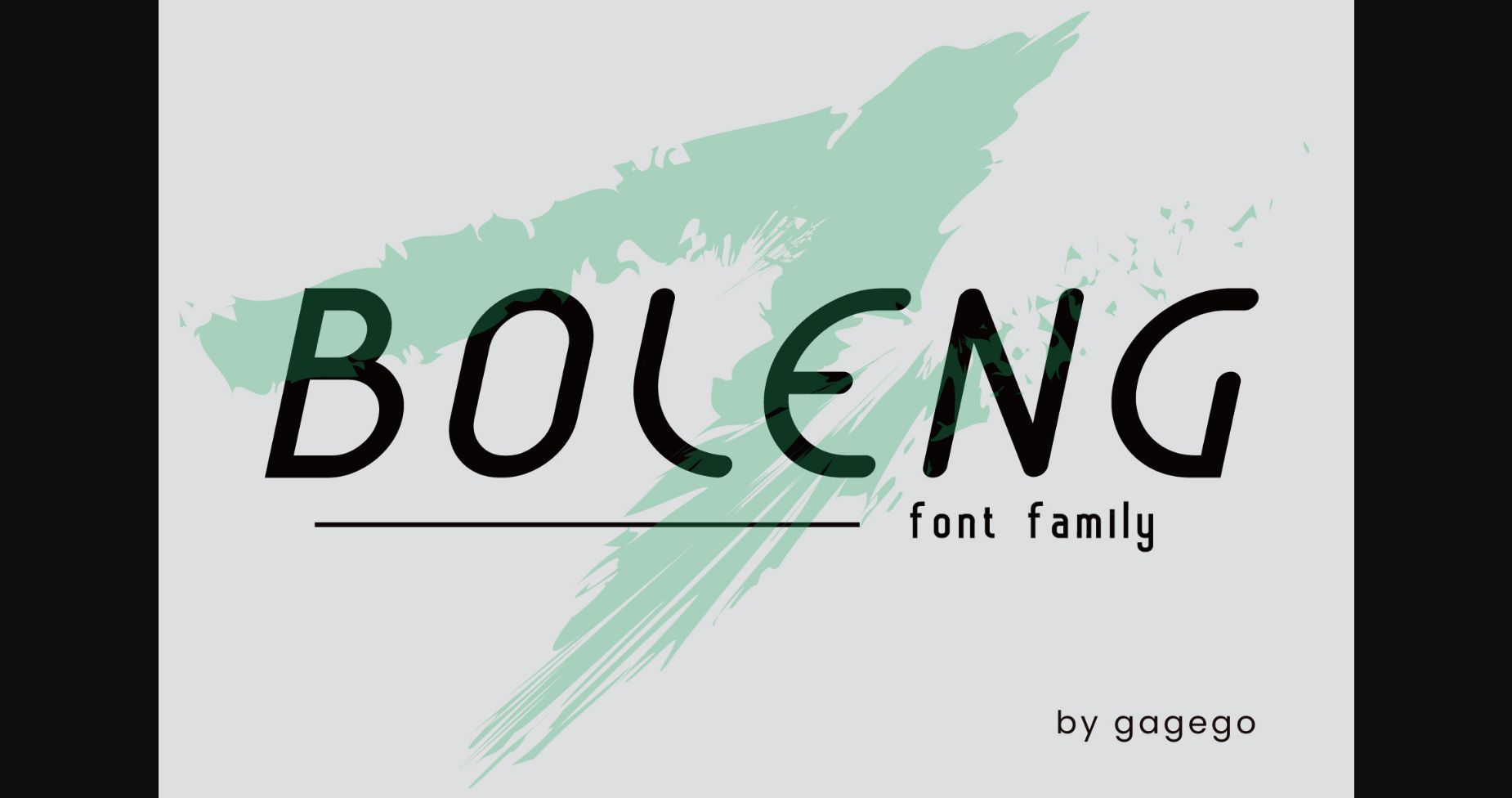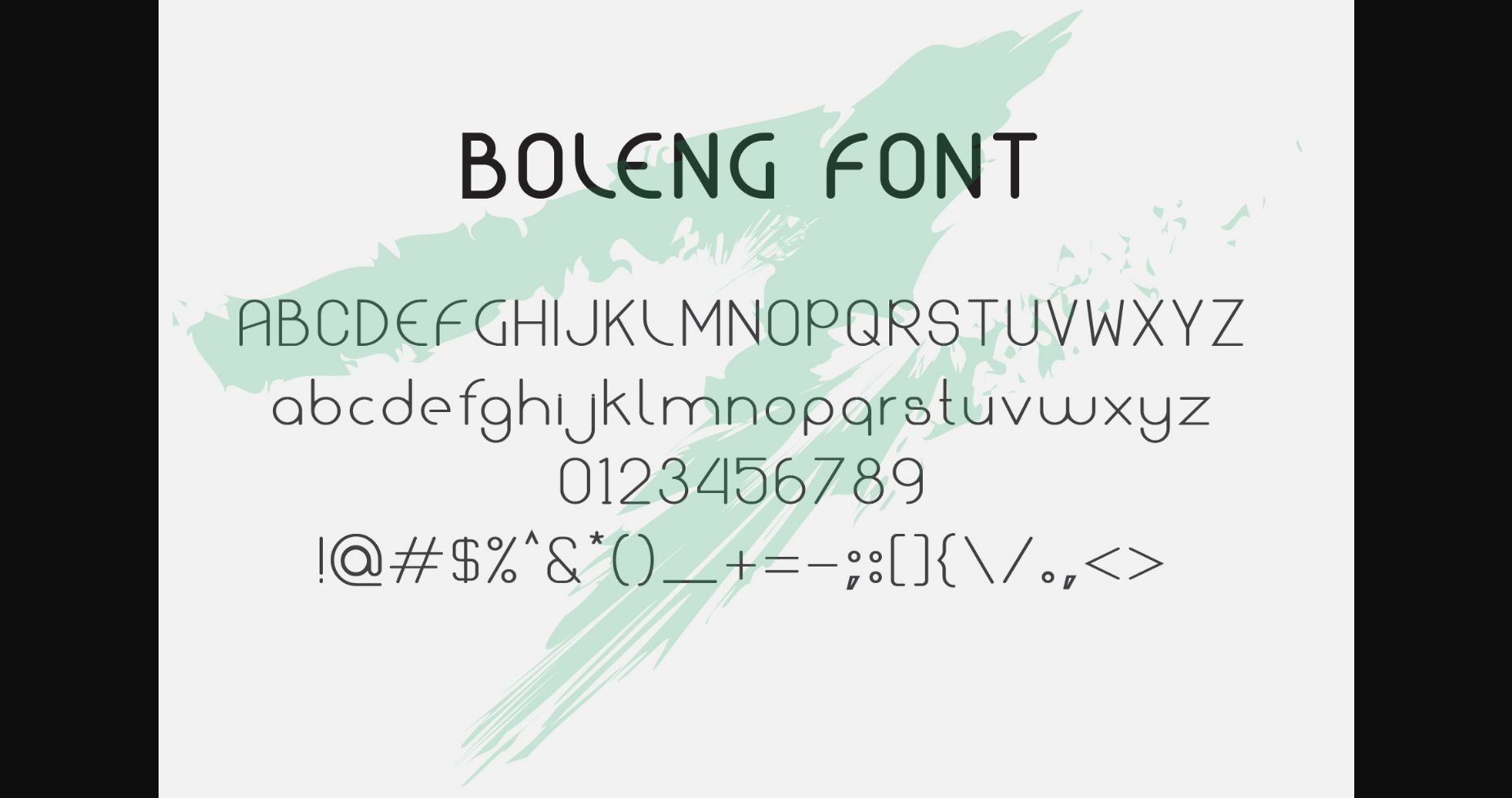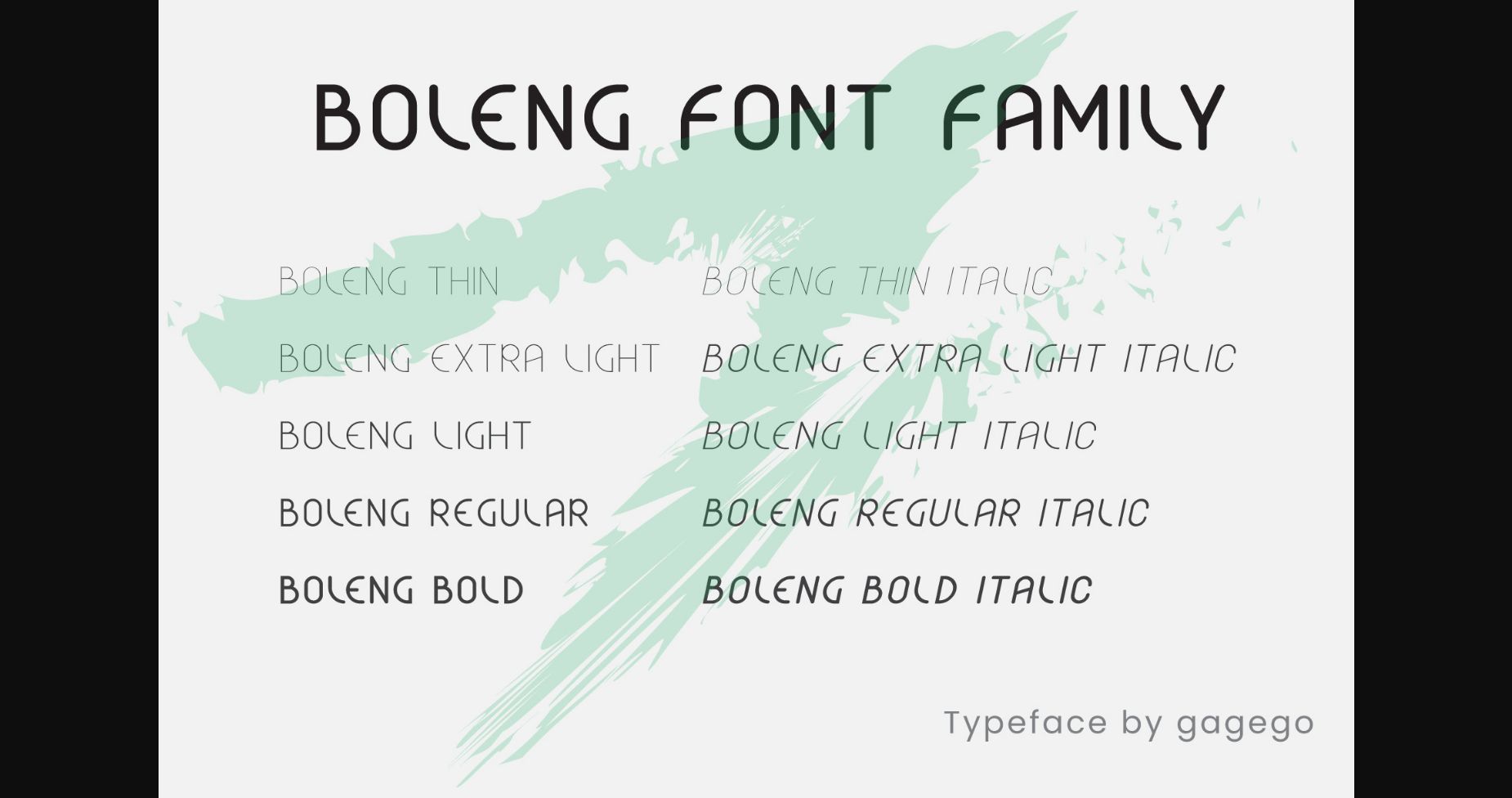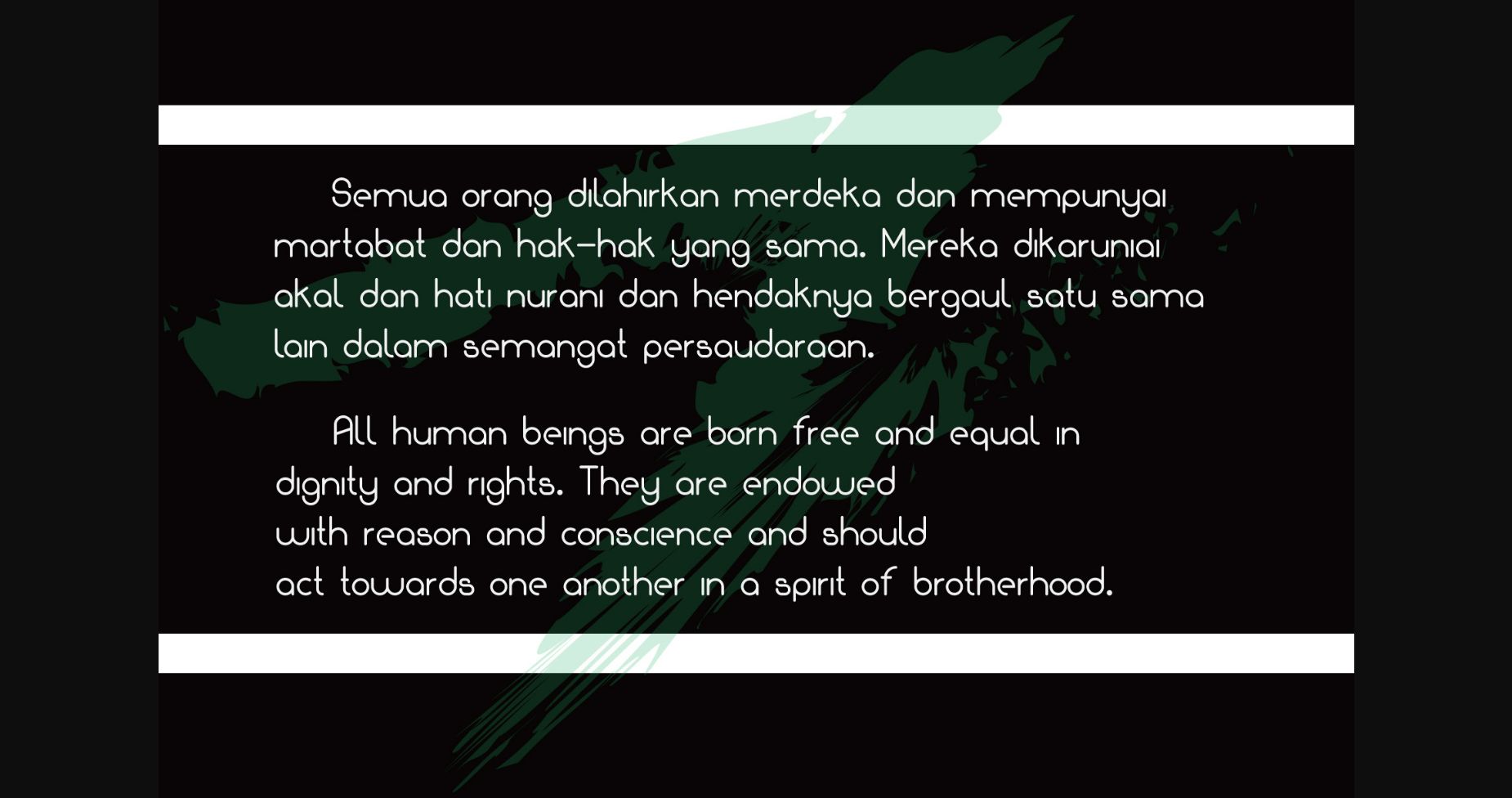
About Boleng Font
Boleng is a simple and exquisite sans-serif font that is the perfect choice for any design project that requires a clean and timeless aesthetic. With its minimalistic design, clear lines, and elegant shapes, this font is ideal for creating a modern and sophisticated look in your designs. Perfect for branding, editorial design, and any project that requires a simple and refined touch.